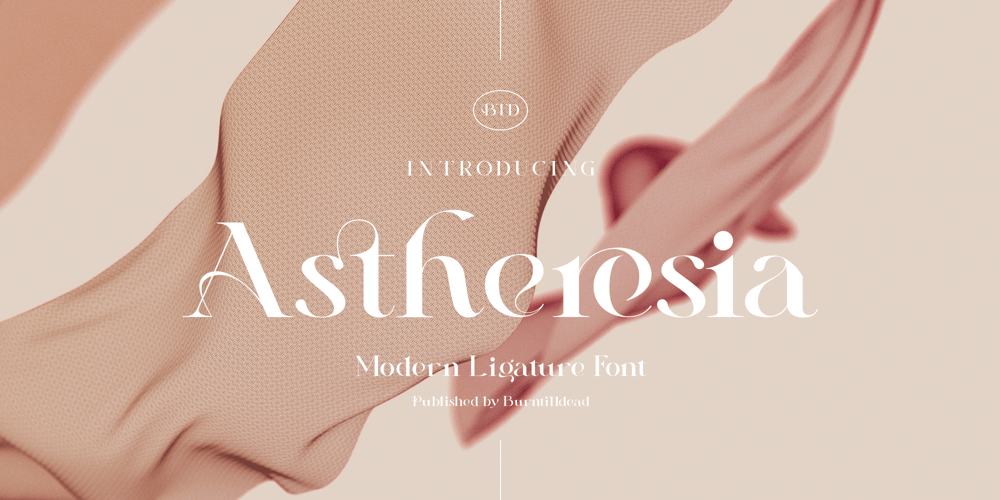
Astheresia Font Family was designed by Eric Kurniawan and published by Burntilldead. Astheresia contains 1 styles and family package options. Introducing Astheresia, a modern ligature serif font with elegant style. It’s an easy way & perfect choice to make your design projects; logo, branding, invitation, social media ads & website have classy looks.